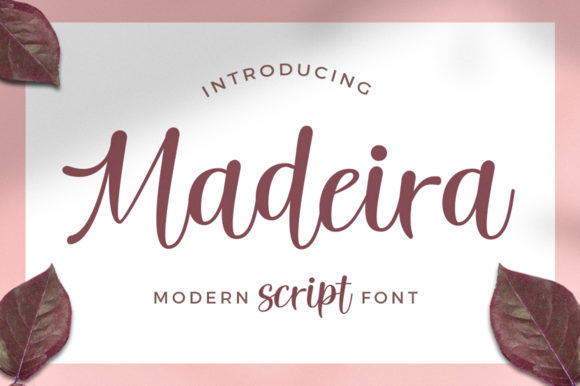
Discover Madeira Font - The Epitome of Elegance and Beauty
Journey into the world of typography with Madeira Font, a script font that exudes charm and sophistication. This stunning creation by doratypefoundry captivates hearts with its graceful strokes, delicate ligatures, and an array of breathtaking alternates.
Madeira Font: A Symphony of Elegance
With its varying baseline, smooth lines, gorgeous glyphs, and stunning alternates, Madeira Font dances across your designs, leaving a trail of timeless beauty. Each letter is meticulously crafted to evoke a sense of elegance and charm that will elevate your projects to new heights.
The Perfect Font for Your Creative Pursuits
Whether you're designing wedding invitations, thank-you cards, heartfelt quotes, or eye-catching logos, Madeira Font is your perfect companion. Its versatility knows no bounds, seamlessly adapting to a multitude of design styles and themes.
A Font That Speaks to Your Heart
Madeira Font is more than just a collection of letters; it's an expression of your creativity, your passion, and your unique style. With its enchanting aesthetics, this font will captivate your audience and leave a lasting impression.
Unleash Your Creativity with Madeira Font
Madeira Font is your gateway to a world of limitless creative possibilities. Its elegant curves and enchanting details will transform your designs into captivating works of art that speak volumes. Experience the joy of creating with a font that truly understands the language of your heart.